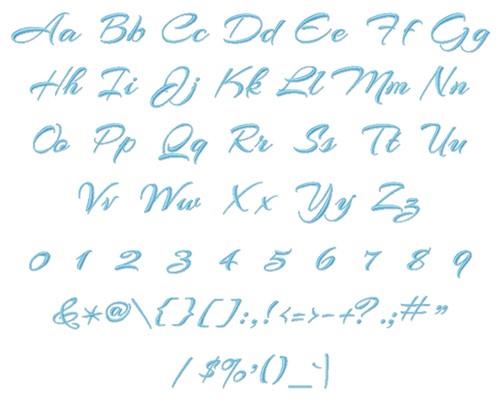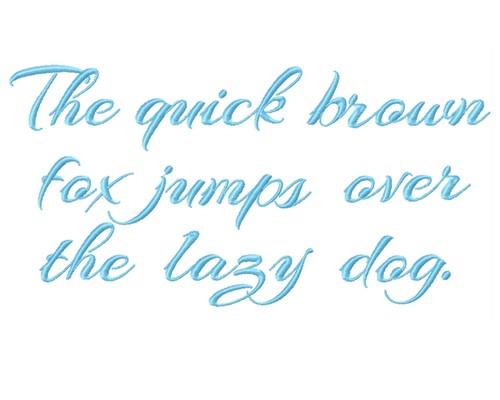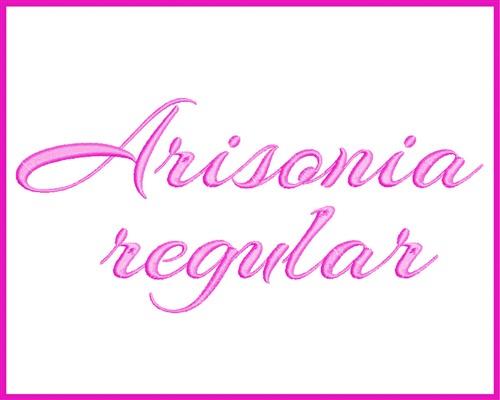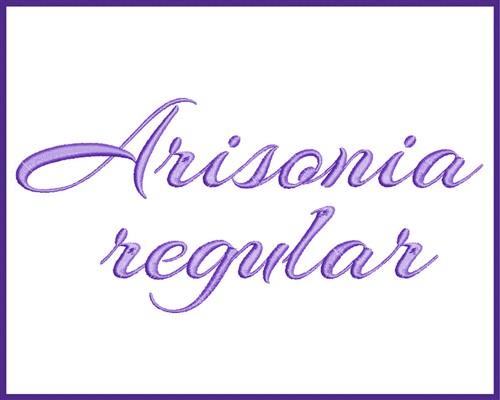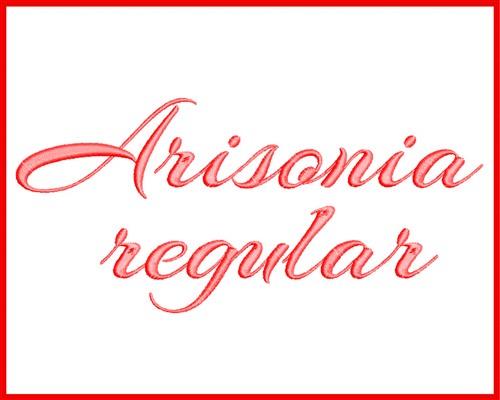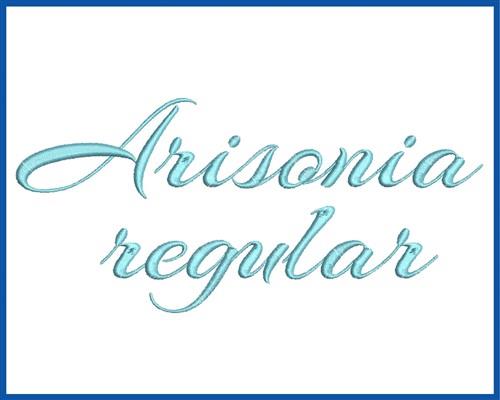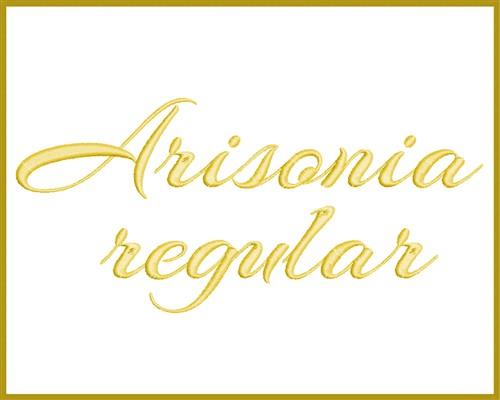
Arisonia Font Embroidery Font - Flowing Script Lettering - Home Format - PES, DST & 8 formats by Maya Kreations and other embroidery fonts available at EmbroideryDesigns.com.
Maya Kreations is happy to present Arisonia Font Embroidery Font - Flowing Script Lettering - Home Format - PES, DST & 8 formats machine embroidery font which has Flowing script machine embroidery font suitable for adding personal touches to soft textiles like scarves and napkins. Available in PES, DST, and several other formats. included. If you would like to view more embroidery fonts and alphabets please search our embroidery fonts page.